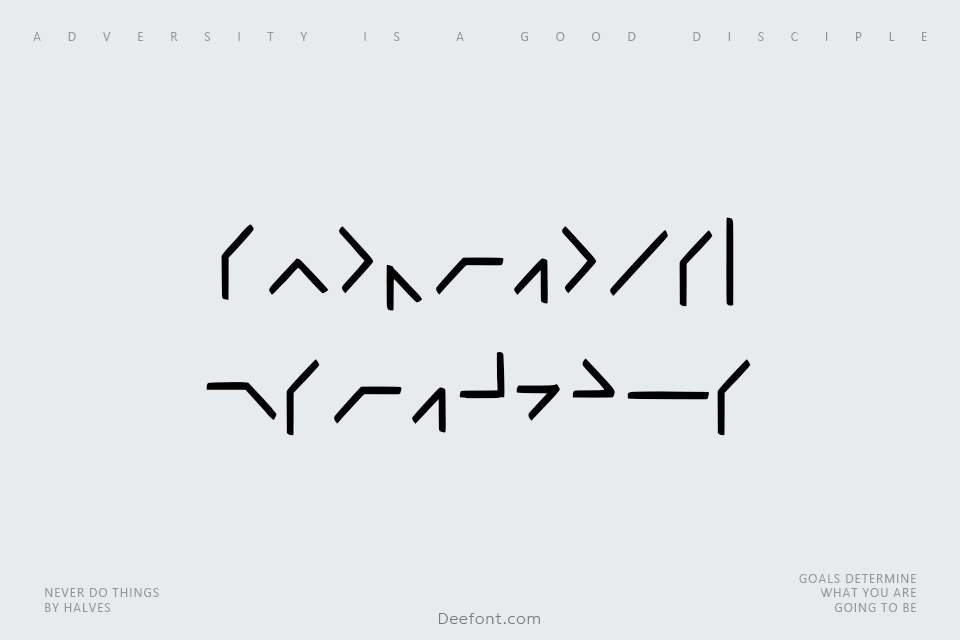
Enigmailed Semaphore Font
Enigmailed Semaphore is a unique dingbat font featuring clean semaphore signal lines without decorative flags. This creative typeface uses simple linear designs to represent naval signaling characters, making it perfect for puzzle enthusiasts and creative designers. The font contains 66 glyphs of communicative symbols ideal for playful typography and distinctive design projects.